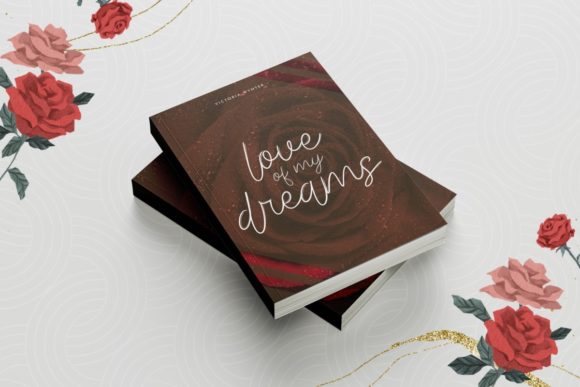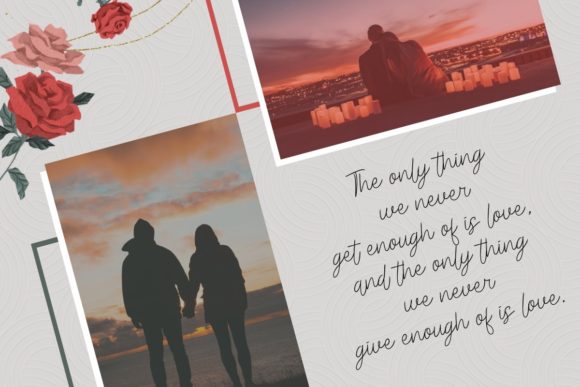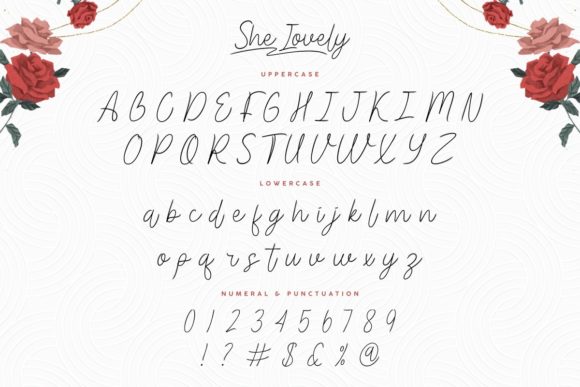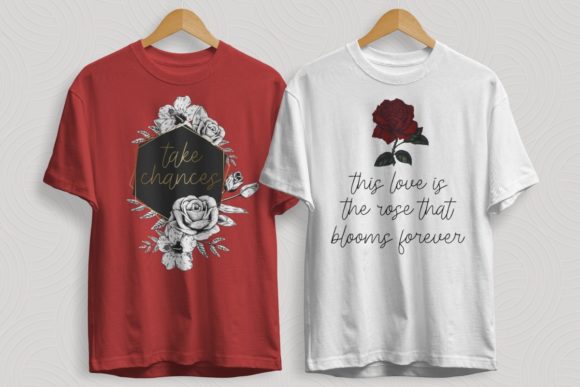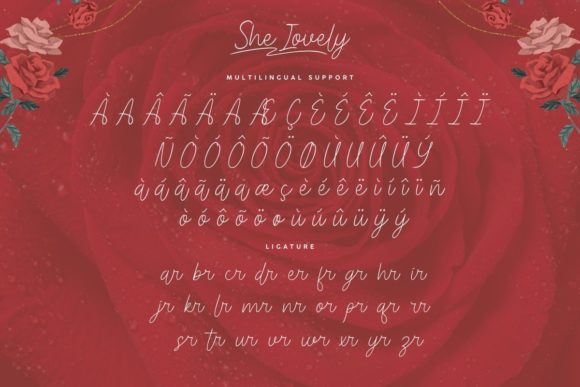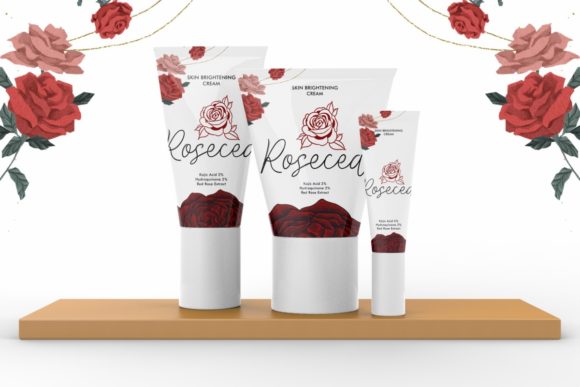
Introduction to She Lovely Font
As a designer, there’s nothing quite like the thrill of bringing a creative project to life. The blank canvas stares back at you, begging for inspiration. And then, it hits you – the perfect font that will elevate your design from ordinary to extraordinary. For me, that font is the She Lovely Font. Its beautiful, light handwriting style is like a breath of fresh air, adding a luxury spark to any project.
Whether you’re working on a high-quality brochure, a logo for a new brand, or a social media graphic, the She Lovely Font is the perfect design resource to make your project stand out. With its stunning impact and PUA encoded glyphs, this font is a must-have for any designer looking to add a touch of elegance to their work.
Key Features of She Lovely Font
- Unique, elegant script font with a transparent background
- Perfect for wedding invitations, greeting cards, and other special occasions
- Supports various languages, including English, Spanish, French, and more
Honest Review: She Lovely Font
As a designer, I’m always on the lookout for high-quality design resources to enhance my creative projects. Recently, I had the chance to try out the She Lovely Font, and I must say, it’s a lovely addition to my design arsenal. ✨
The She Lovely Font offers a beautiful, elegant script that’s perfect for weddings, invitations, and other special occasions. The font’s transparent background makes it easy to use with any design element, and the free download option is a bonus. This font is a valuable resource for designers who need a high-quality, stylish script for their creative projects.
- Beautiful, elegant script style
- Perfect for weddings, invitations, and other special occasions
- No bold or italic versions available
- May not be suitable for larger text sizes
Overall, I’m impressed with the She Lovely Font and would definitely recommend it to designers looking for a high-quality, elegant script font. With its transparent background and free download option, it’s a valuable resource for any creative project.
Common Use Cases for She Lovely Font
She Lovely Font is ideal for a variety of creative projects, including logos, business cards, and social media graphics. Its high-quality design and transparent background make it a popular choice among designers and non-designers alike.